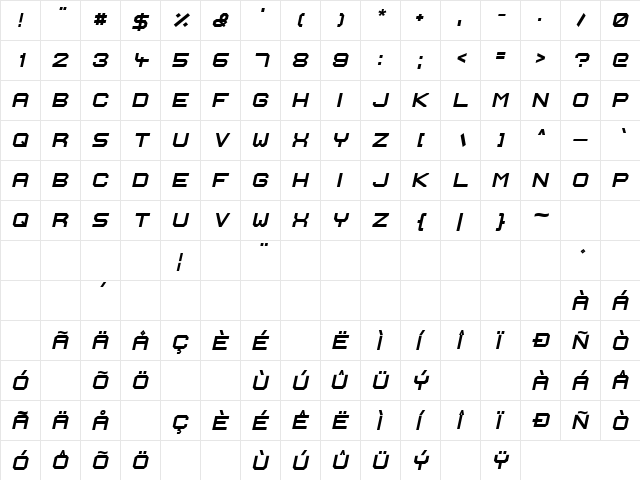
Ignis et Glacies Extra Sharp BoldItalic Font Preview
| Designer | Zdenek Gromnica aka FutureMillennium |
Design Context for Ignis et Glacies Extra Sharp Typeface
Ignis et Glacies Extra Sharp takes a measured approach to typography — its balanced proportions and neutral character make it a reliable workhorse for both digital and print work. The dynamic lean of this cut emphasises speed and emphasis in any layout. Its bold stroke weight gives it real presence on the page.